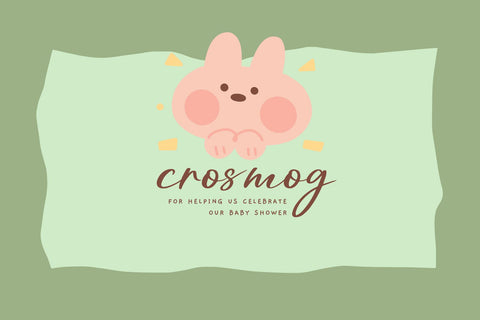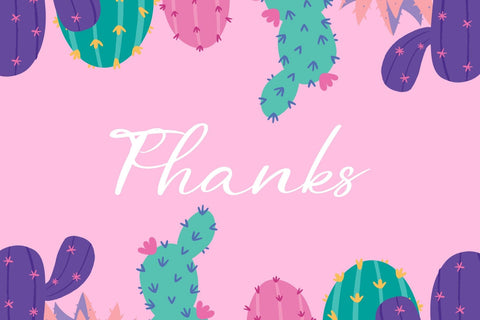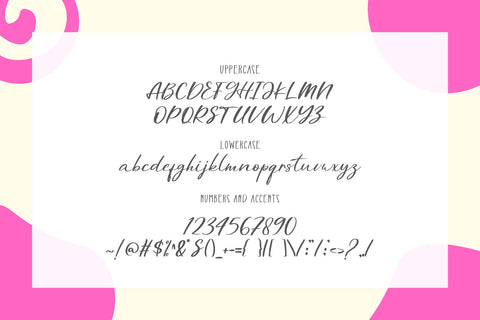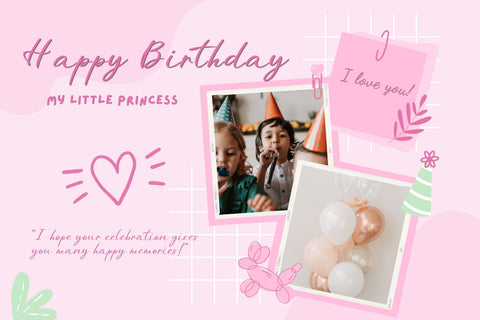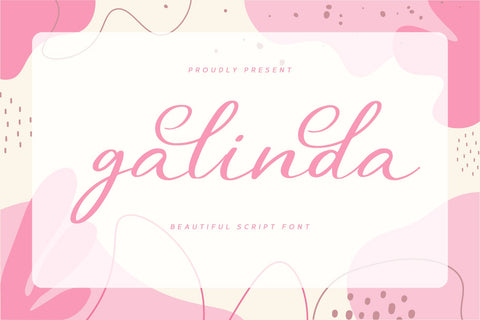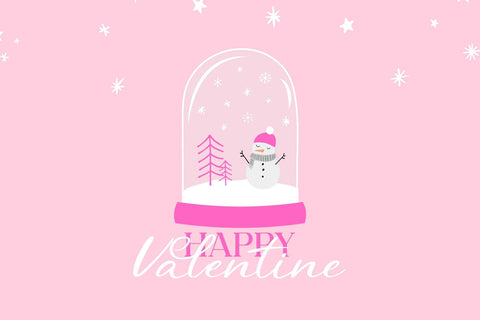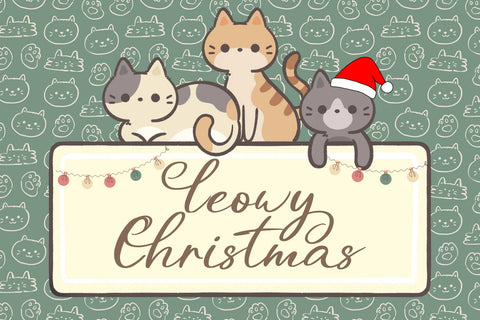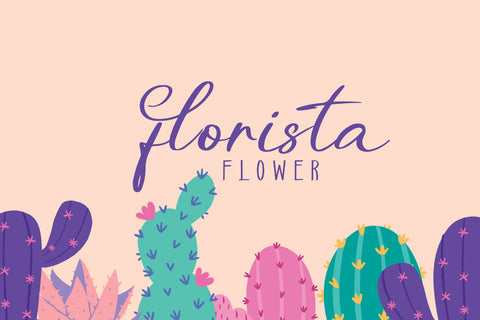
Galinda
We've got something special for you today - Galinda font! A natural script font, made with handwriting style. This font also has a signature touch that is versatile to apply for many purposes.
Galinda is simple style, lovable, beauty! Recommended to be used on designs that require minimalist, elegant, or clean looks. The script font includes a full character set with beautiful swashes.